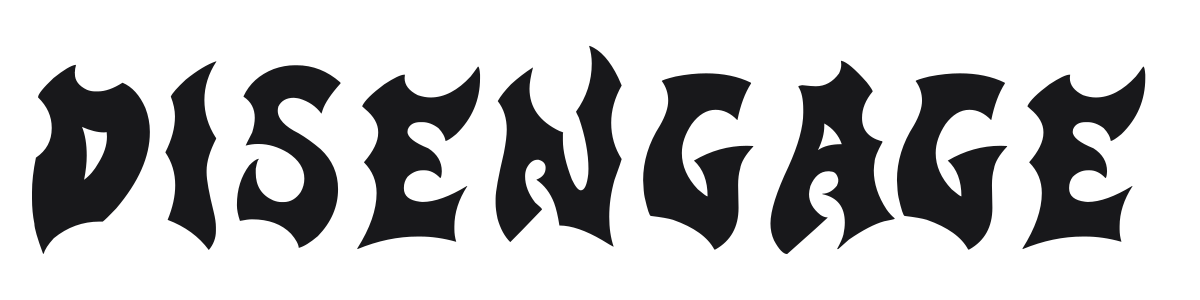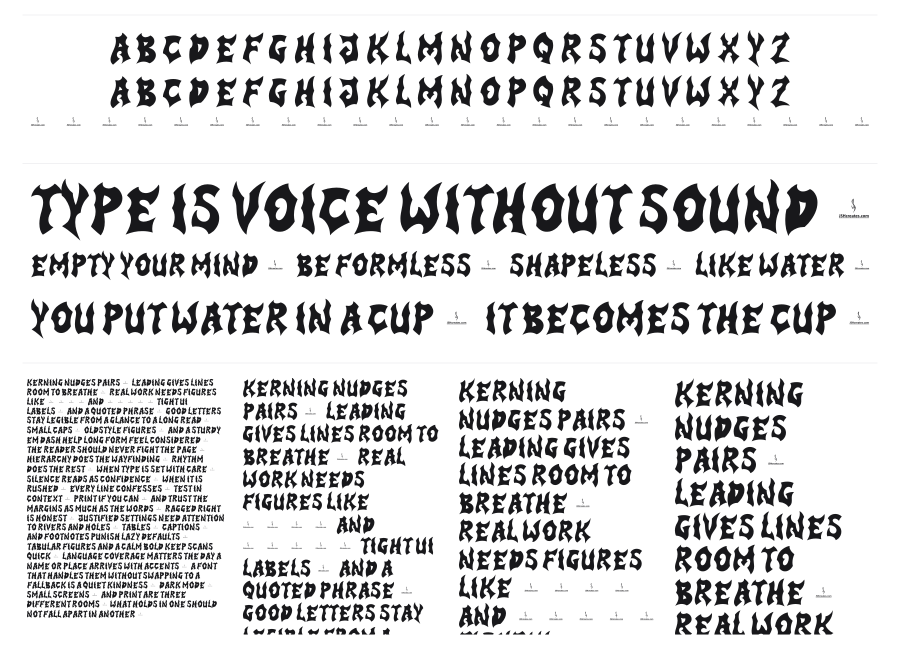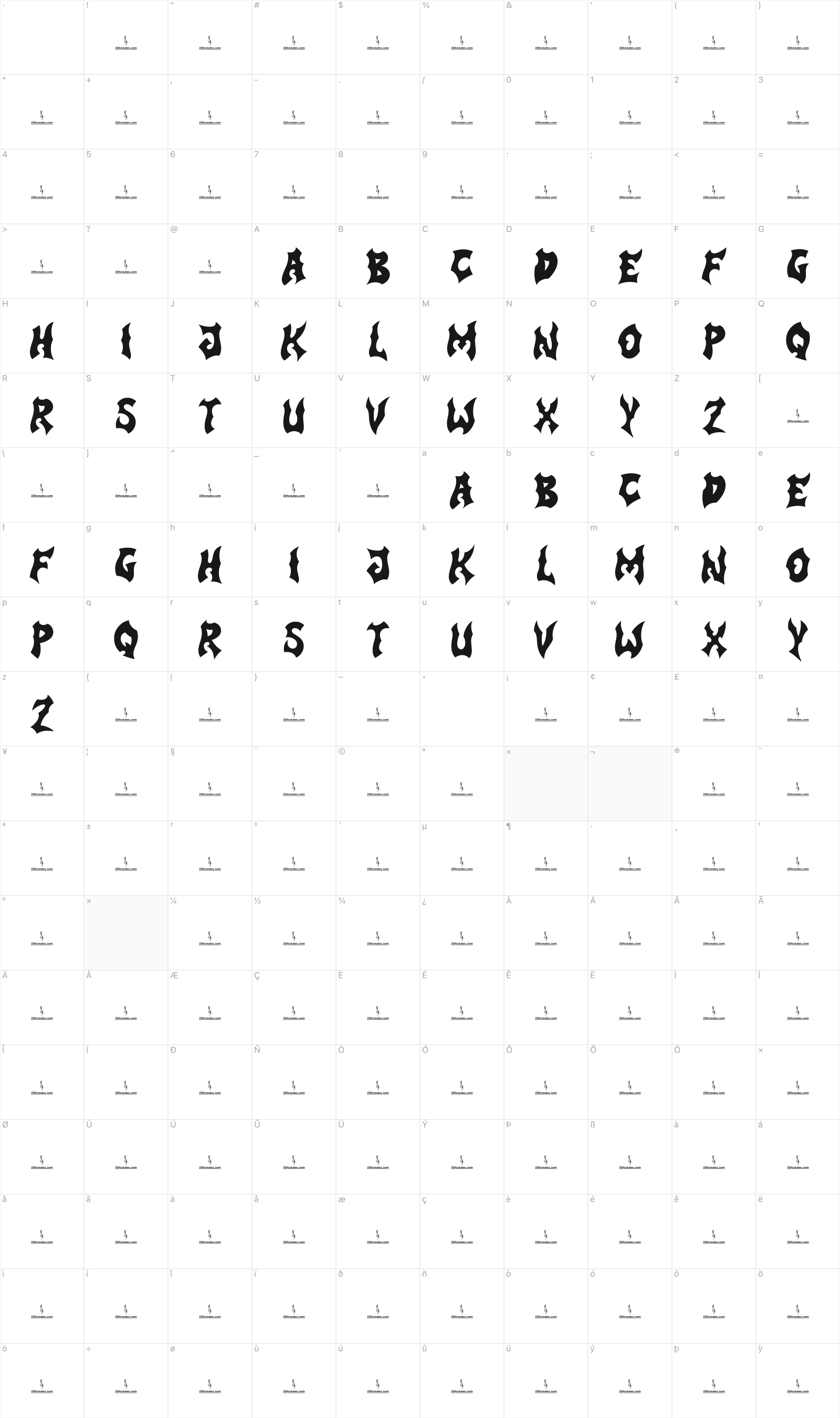
Disengage
Disengage is a heavy display font that merges blackletter angularity with a raw, hand-carved energy. Thick stems taper into sharp pointed terminals, and the irregular edges across each character give it an unsettling, organic tension. It occupies the space where horror movie credits, heavy metal merchandise, and underground zine covers converge.